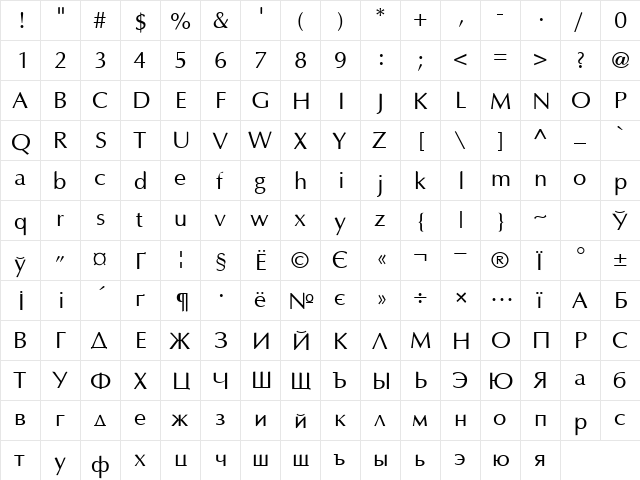
FT Content Provider Regular
Design Context for FT Content Provider Typeface
FT Content Provider offers clean, dependable letterforms without strong stylistic allegiance, making it a practical choice for designers who need flexibility.
Pro Tip: Pair FT Content Provider with a font of contrasting weight or personality to build a more expressive typographic hierarchy.